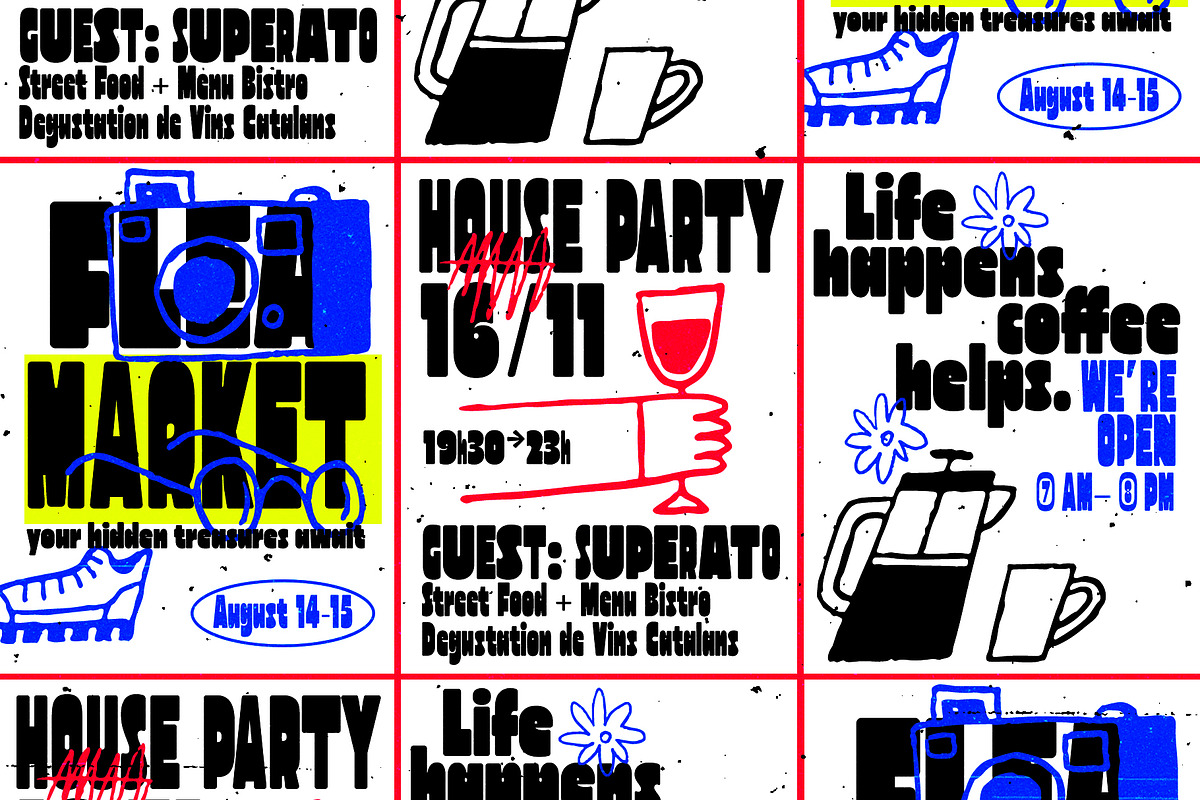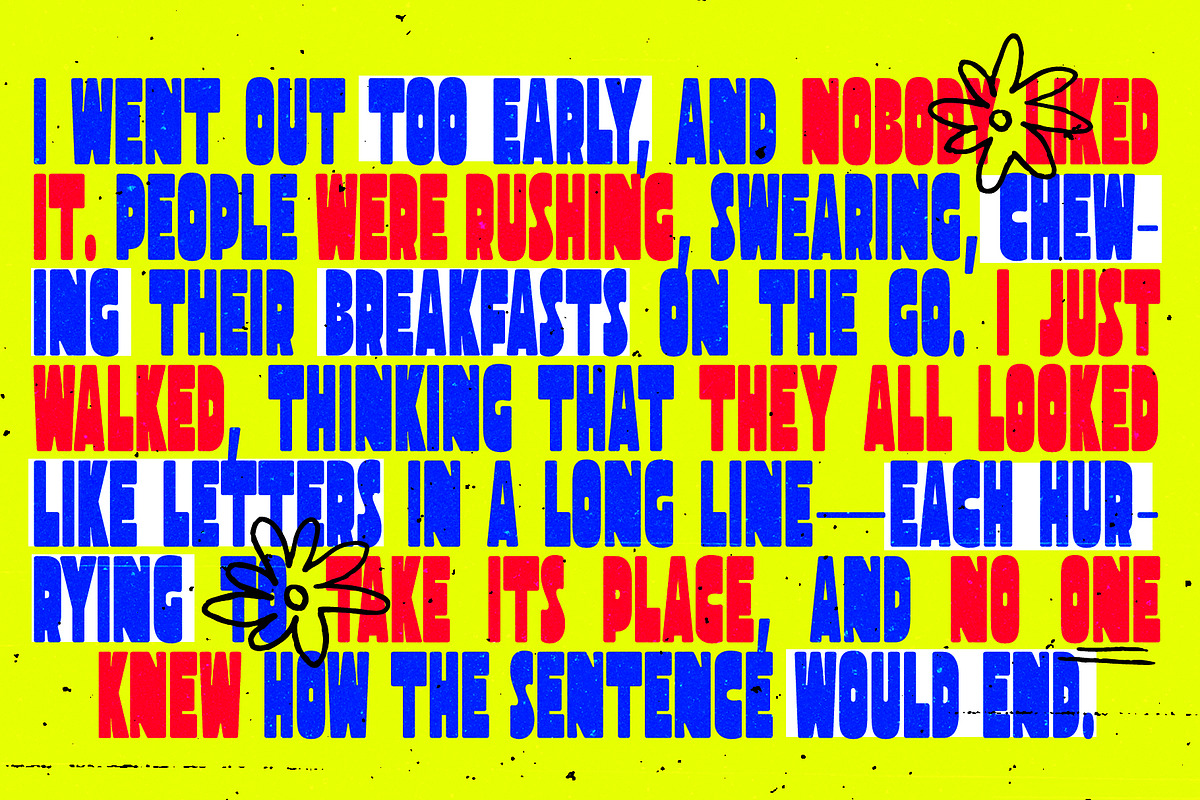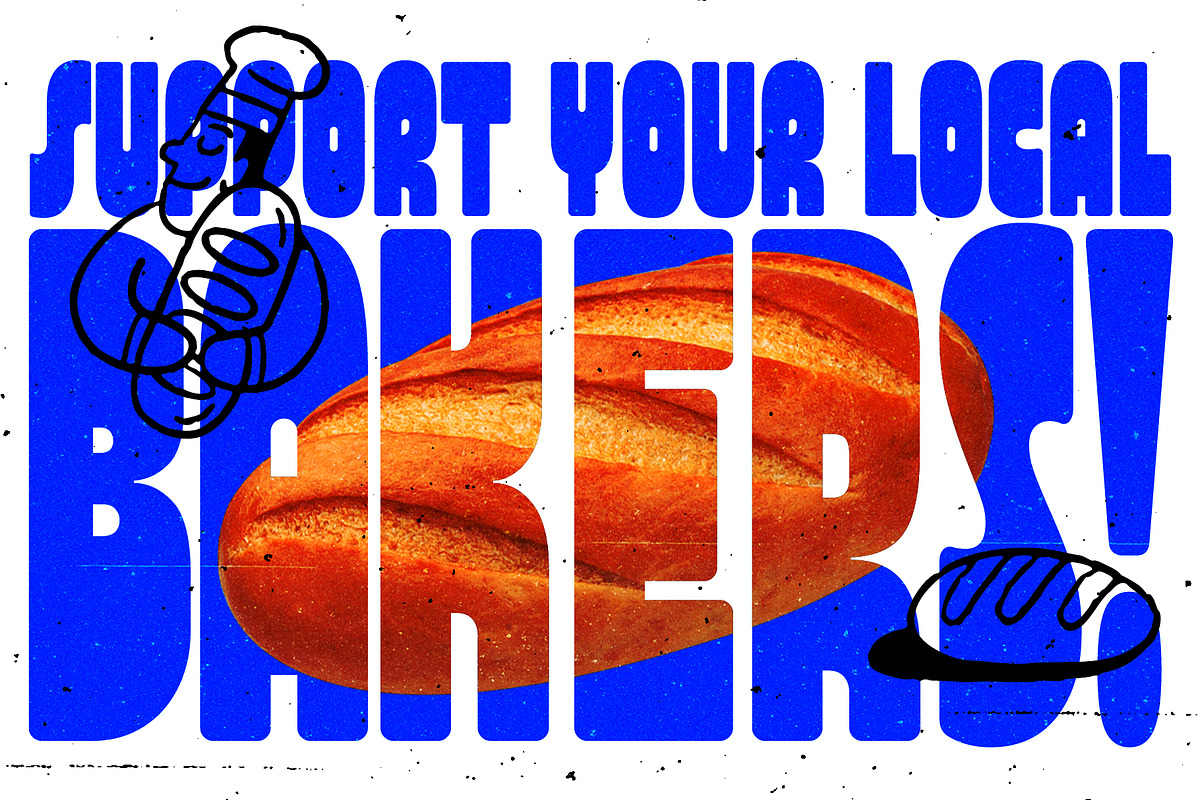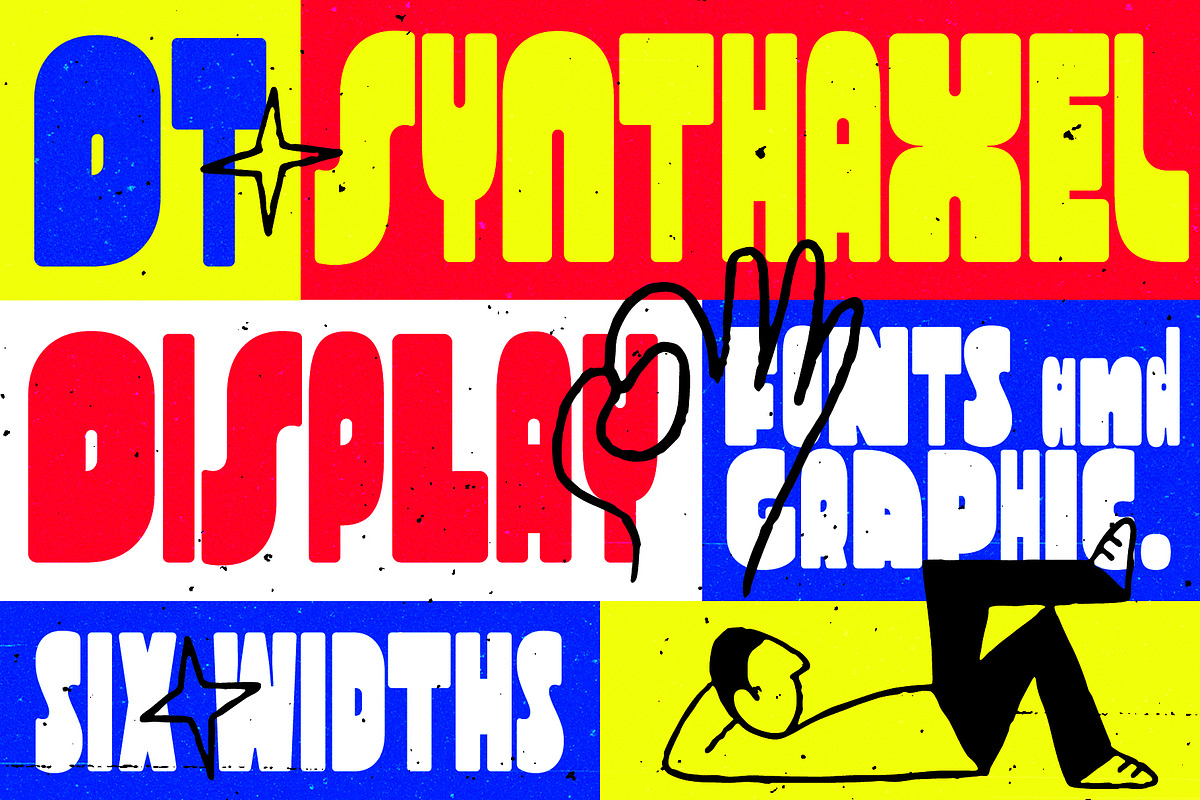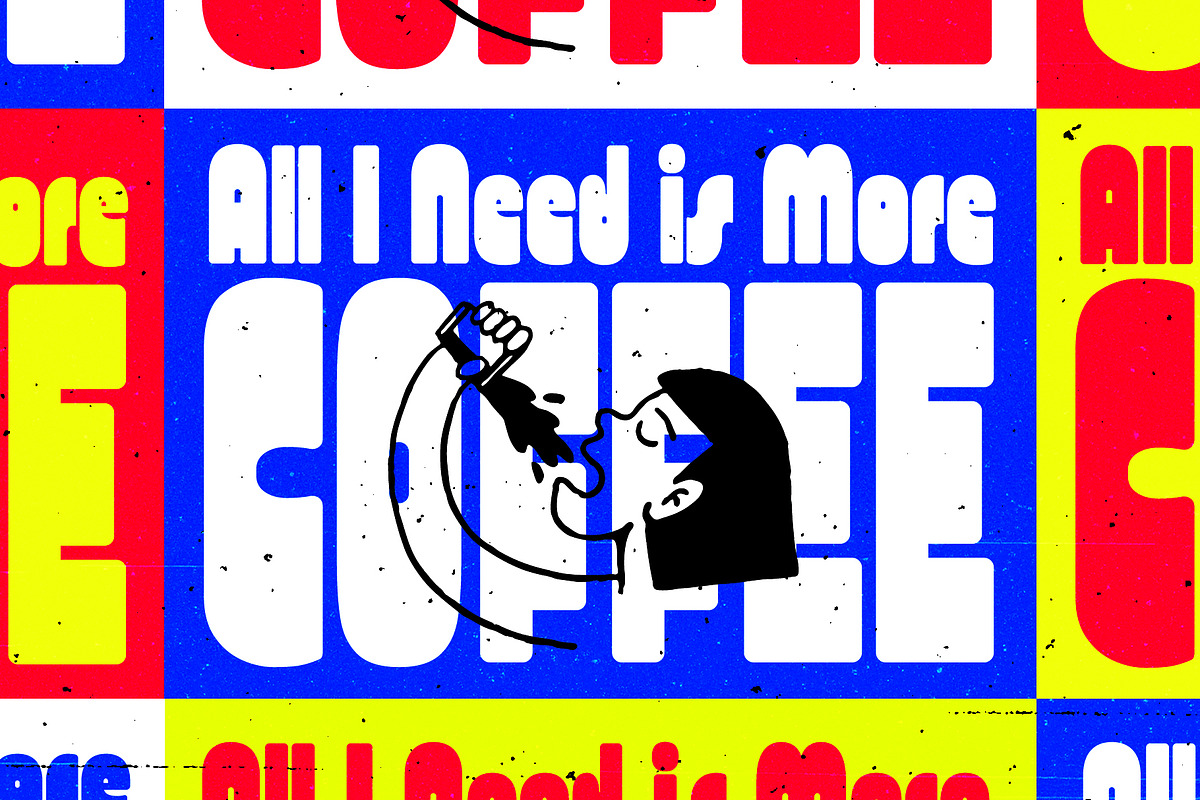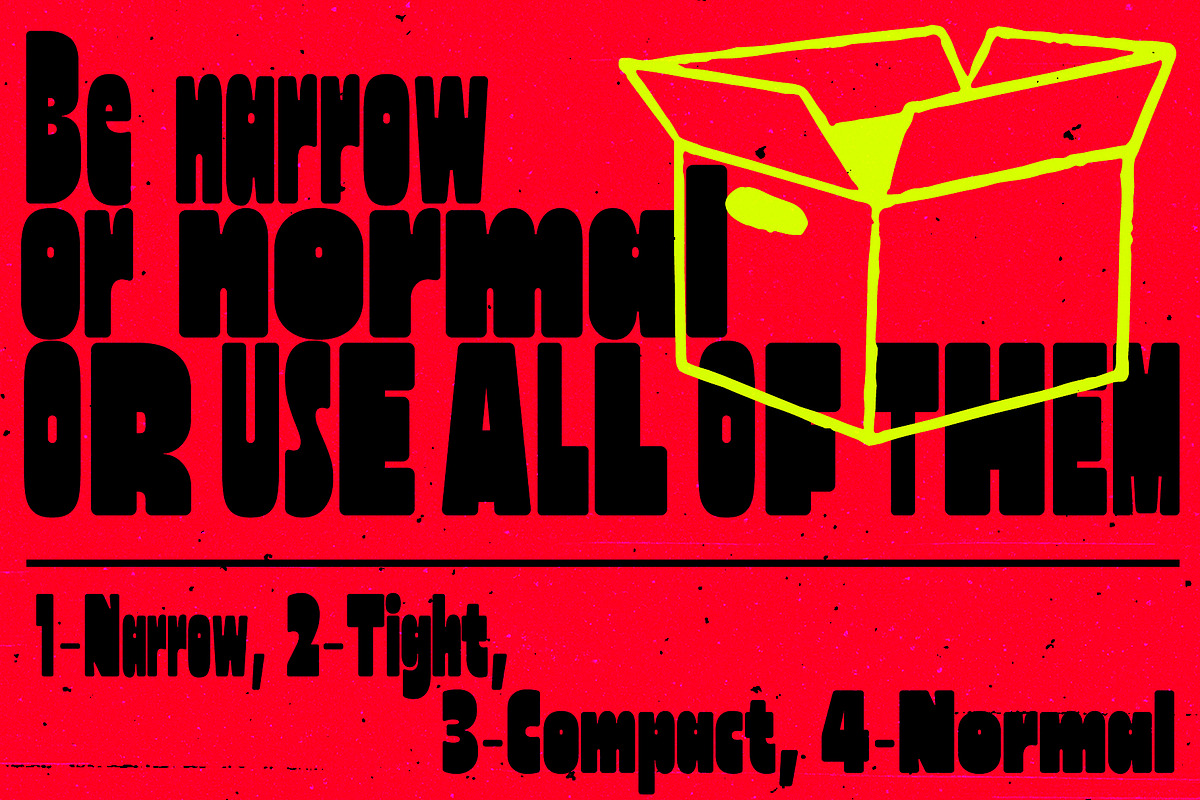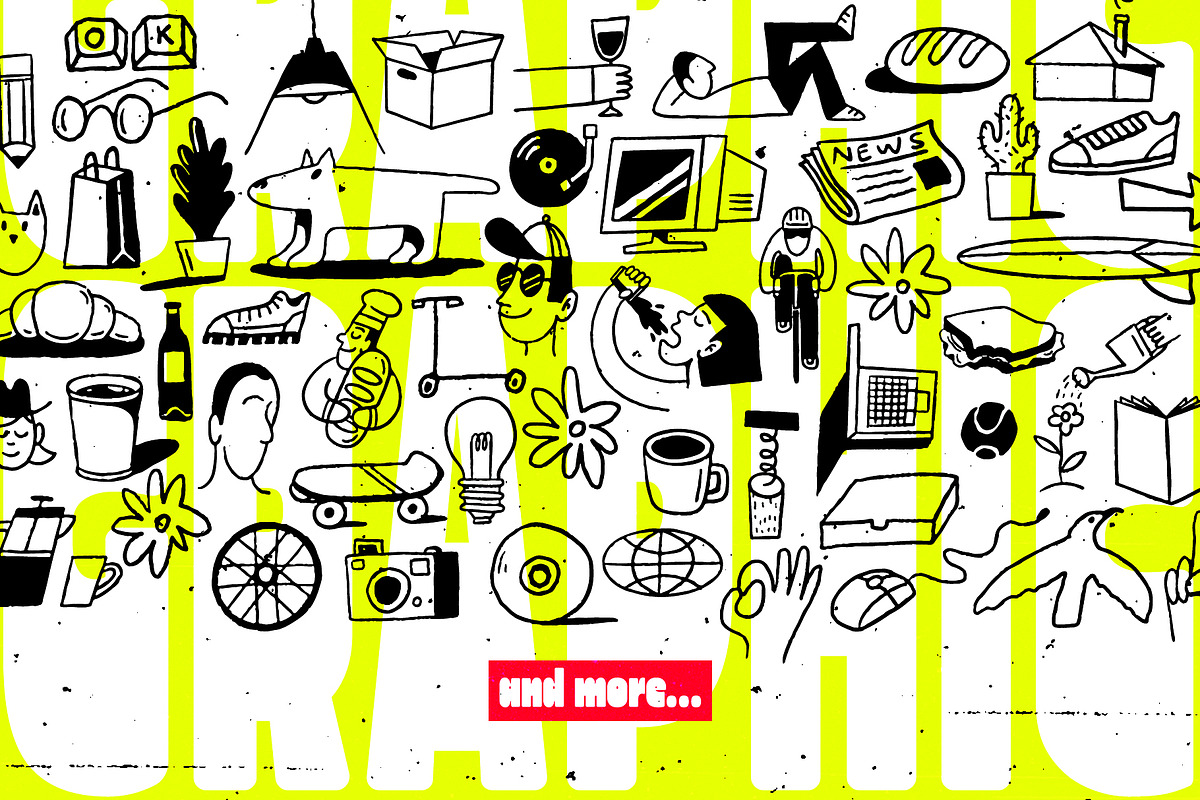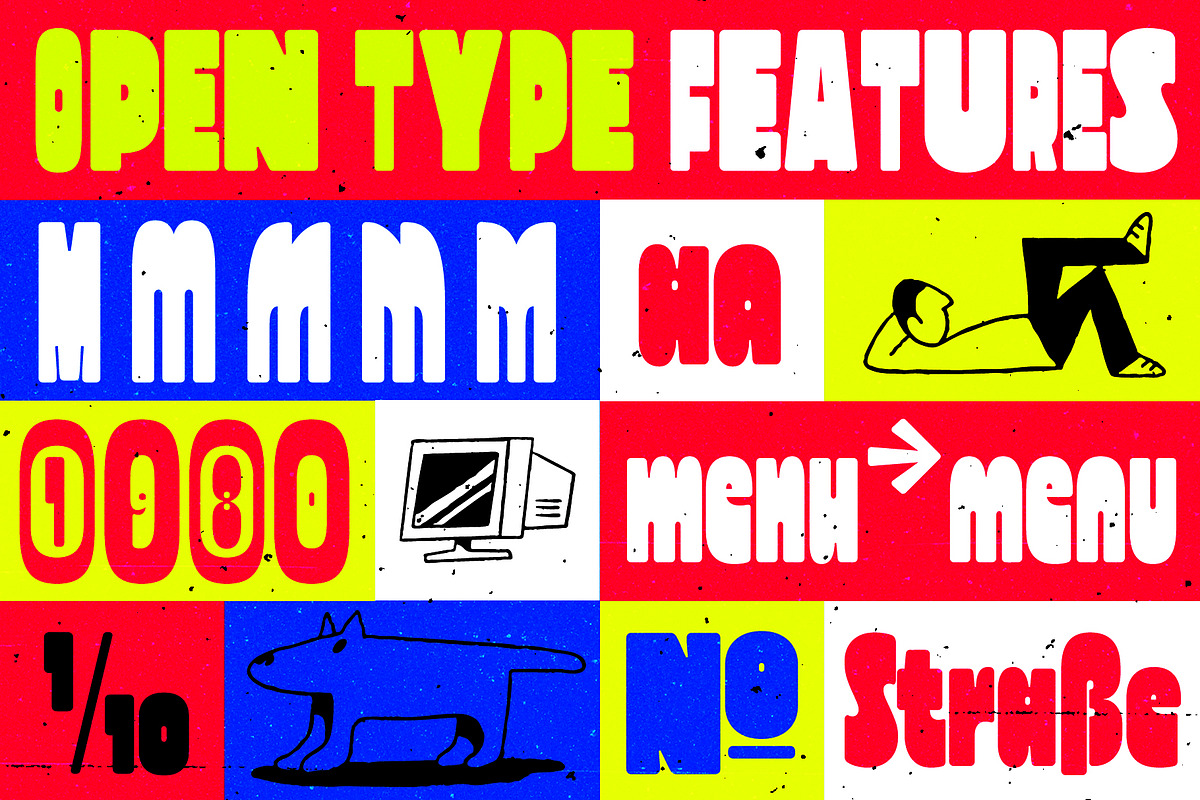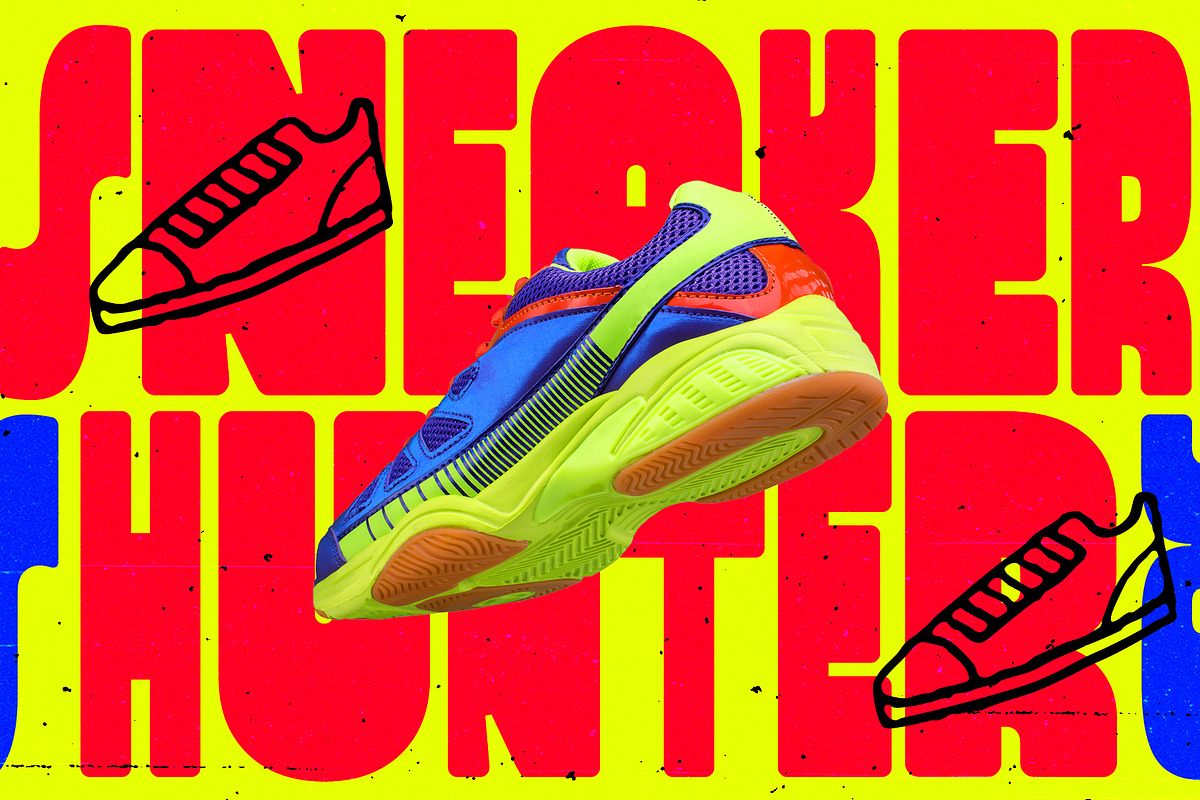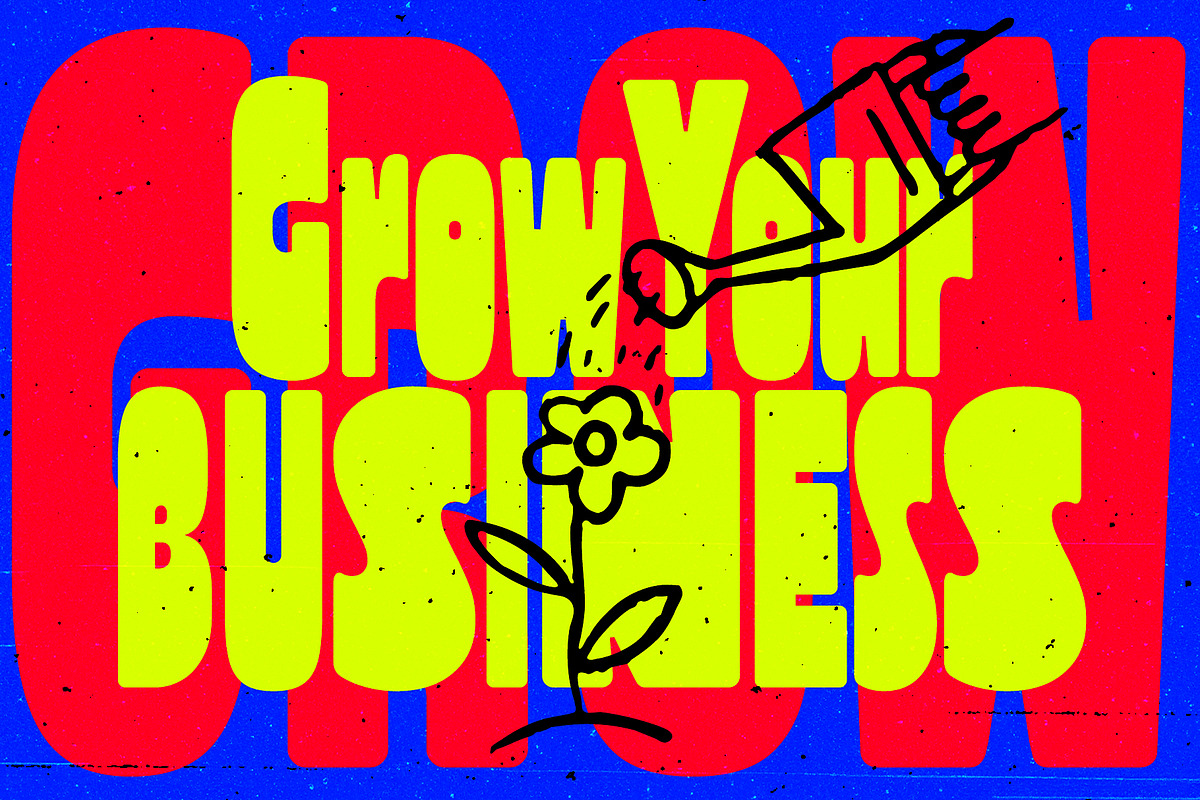
DT Synthaxel Display
DT Synthaxel Display is the font that screams off the poster before you even read it. Loud, bold, unapologetic. Not for quiet headlines, not for timid designers. Pure energy, graphics on full blast, text that always takes the lead. Six widths, six moods — from heavy pressure to wide-open breath. And the graphics? They come as their own dedicated style — raw, playful, hand-drawn energy that turns type into a living, breathing visual system. DT Synthaxel Display doesn’t ask for permission, it takes the whole space.
Latin-Extended.